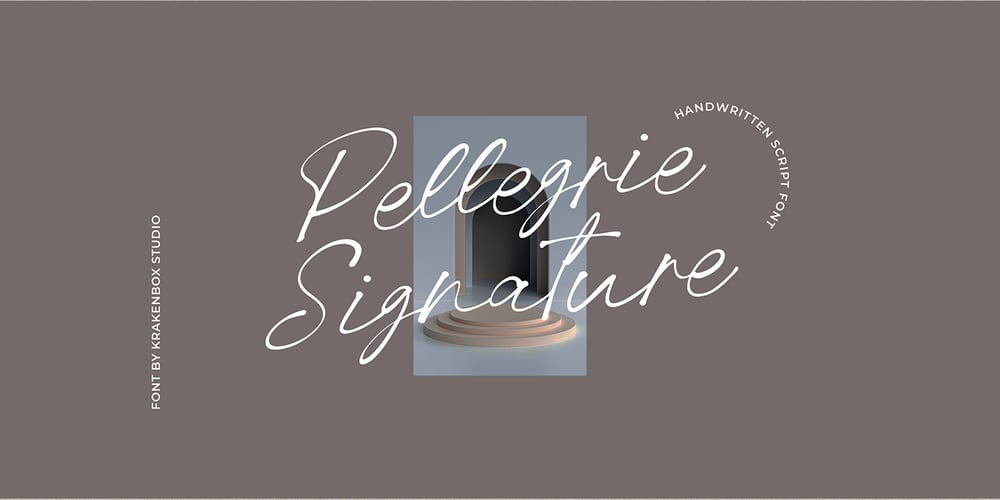
Pellegrie Signature Font Family was designed by Yahdi Kumala and published by Krakenbox Studio. Pellegrie Signature contains 1 styles and family package options. Pellegrie Signature is a fashionable sophisticated signature-style script with its own unique curves and an elegant inky flow.. Its elegant, classy, and modern look makes it a fantastic choice for fashion, signature, album covers logos, branding, magazines, social media posts, advertisement, and many more. Use this display font to add that special cool touch to any design idea you can think of!